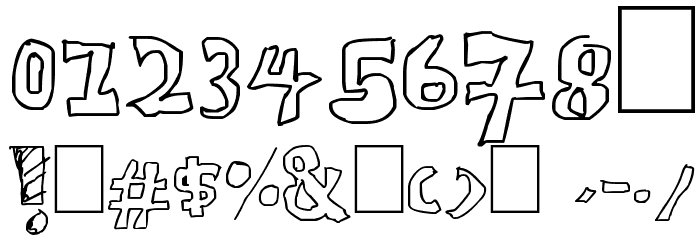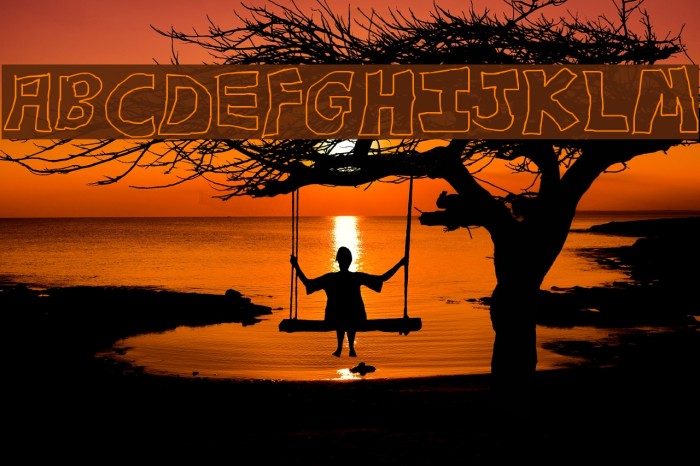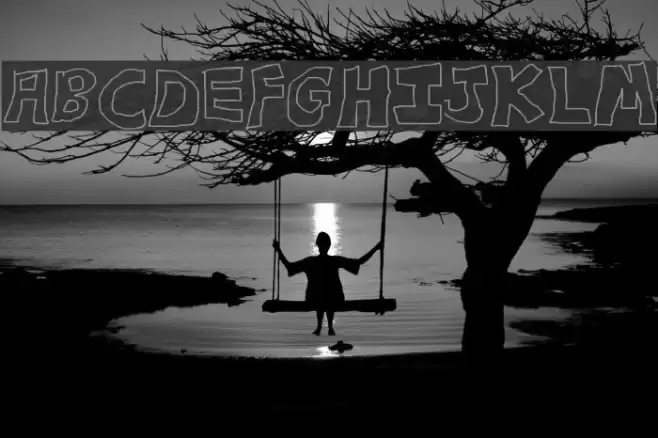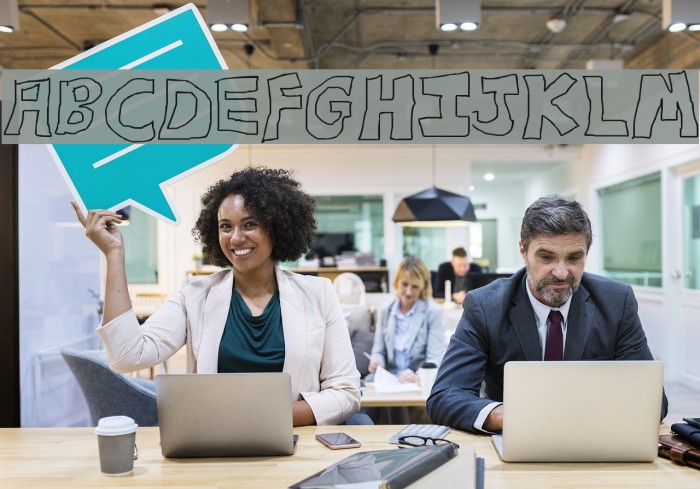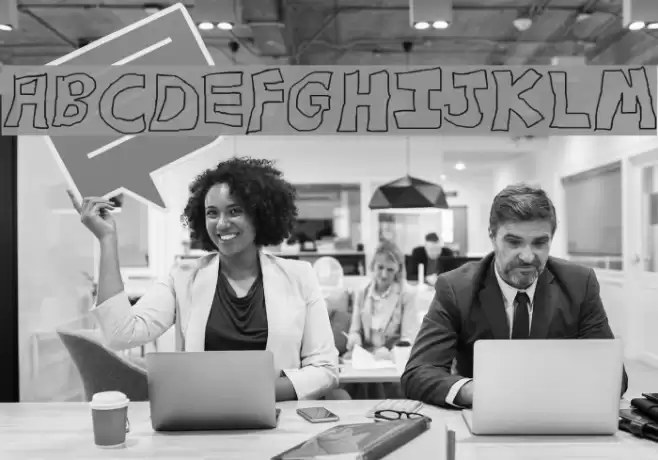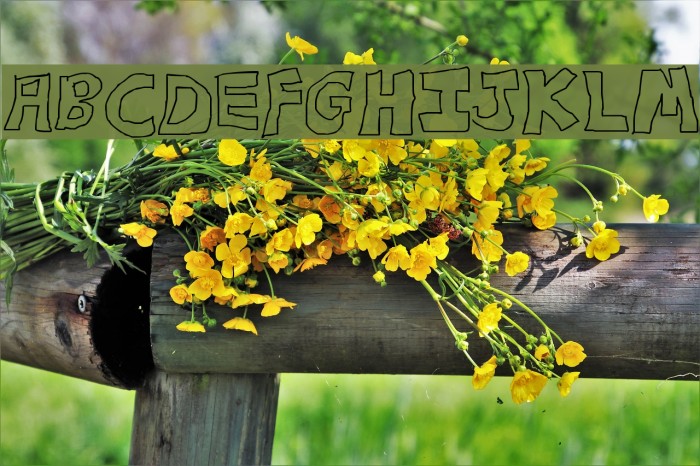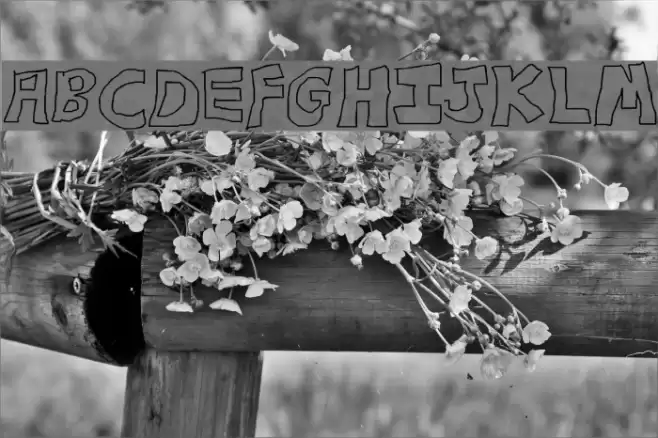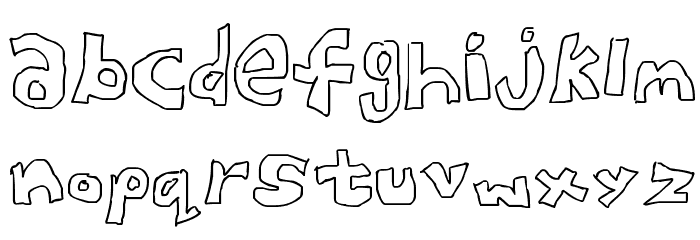
Blockster Font
✎ Cartoon
| 全体的なスタイル | Playful, Artistic |
| 用途 | Headlines, Posters, Creative projects |
| おすすめプロジェクト | Ideal for children's books, comic strips, playful branding, and creative posters. |